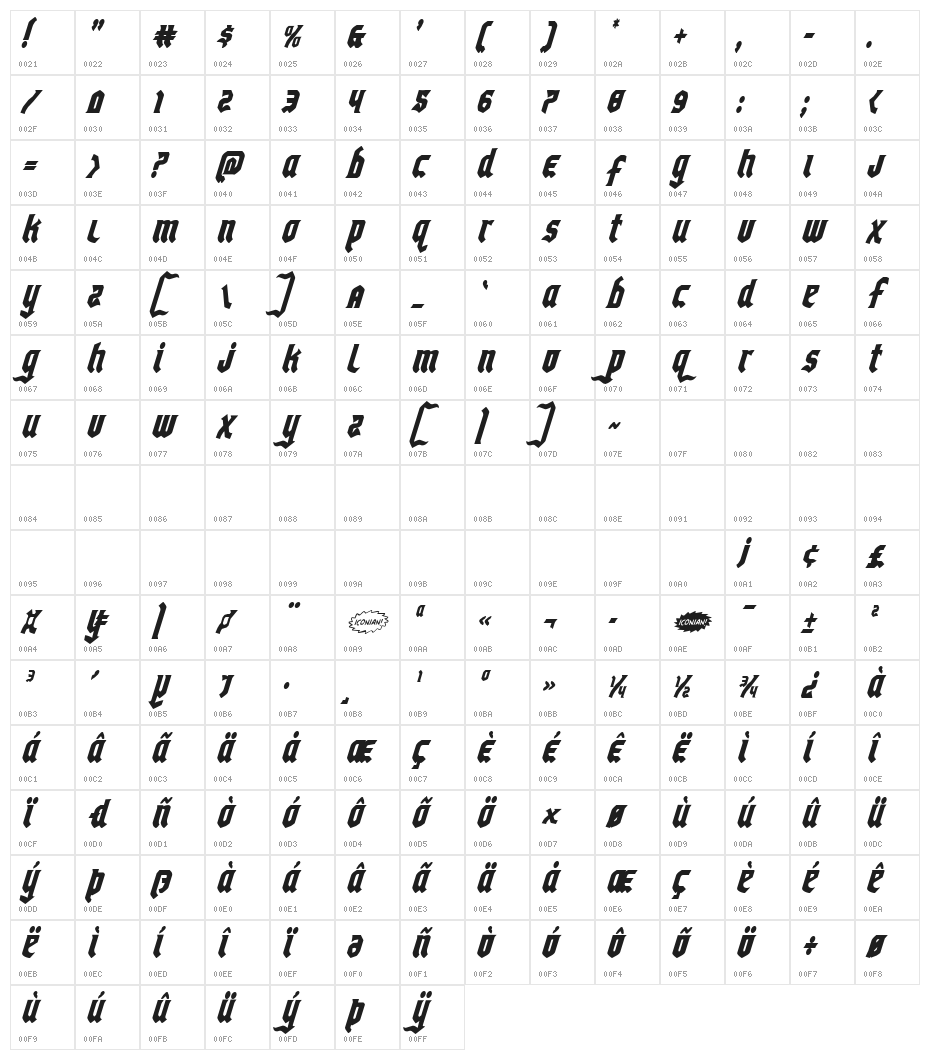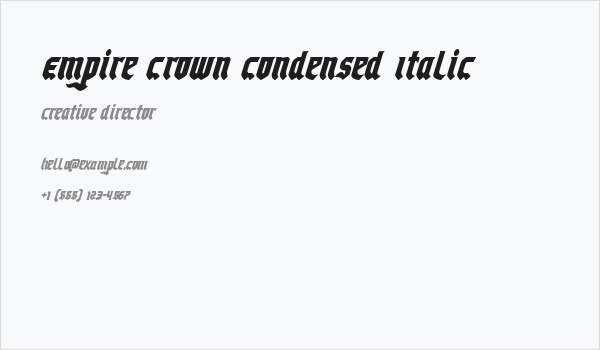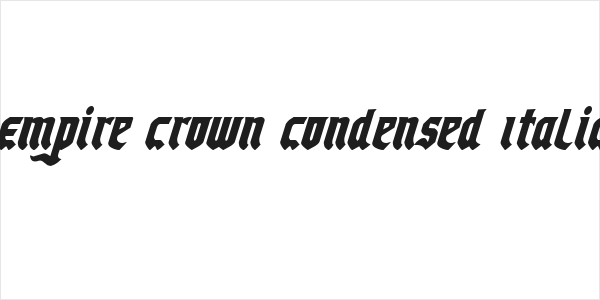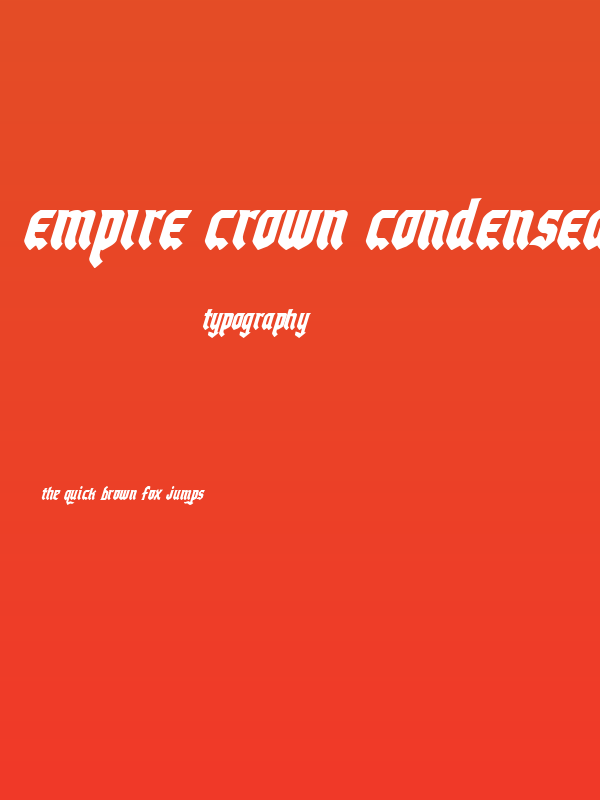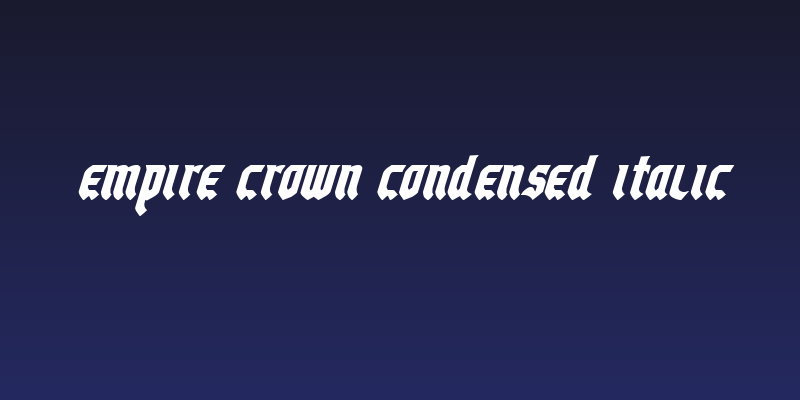
Empire Crown Condensed Italic Font
Empire Crown Condensed Italic Description
This font features a bold and striking design with a condensed and italicized style. The characters are sharply angled, giving a sense of movement and urgency. The uppercase and lowercase letters maintain a consistent slant, enhancing the dynamic appearance. The numerals and special characters follow the same design principles, ensuring uniformity across all glyphs. The font's boldness and condensed width make it ideal for impactful headlines and attention-grabbing designs.
| Proposed Projects | Ideal for branding, posters, and headlines where a strong and dynamic presence is needed. |